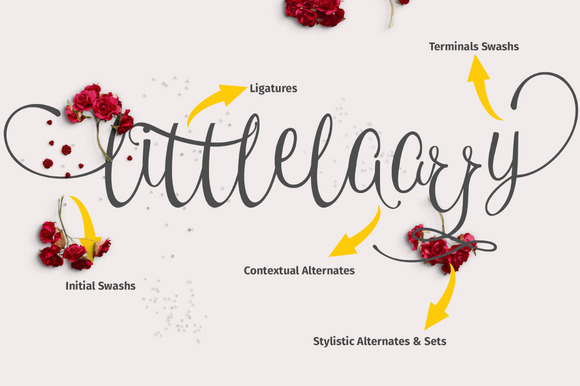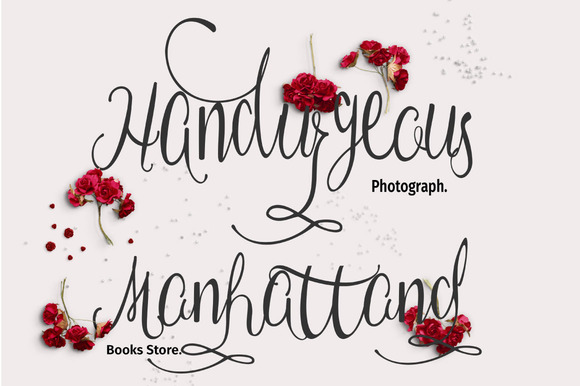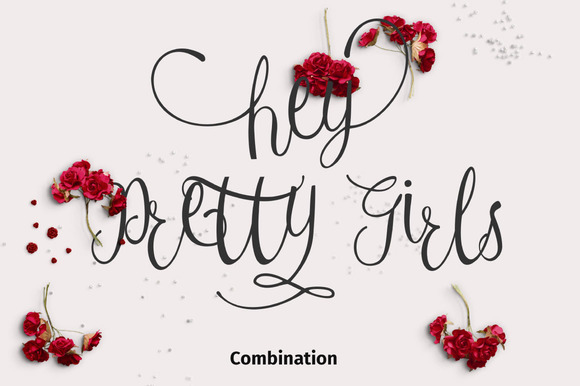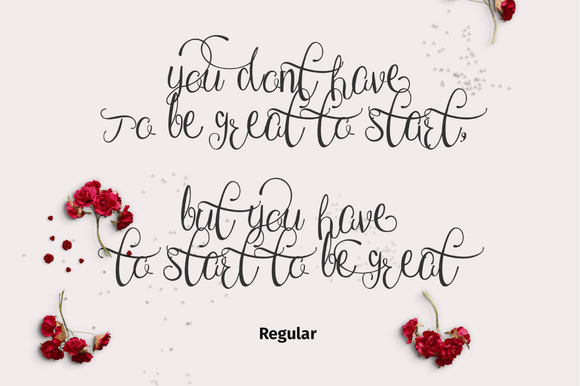
Introducing Grandymaa Font: The Sweet Calligraphy Typeface for Elegant Designs
In the world of typography, a new star has emerged – Grandymaa Script, a beautiful and sweet calligraphy typeface that is taking the design community by storm. This stunning font is characterized by its unique dancing characters that flow effortlessly along the baseline, exuding a sense of elegance and sophistication. Whether you’re a designer, crafter, or simply someone who appreciates beautiful typography, Grandymaa Font is sure to captivate your heart.
The Charm of Grandymaa Script
Grandymaa Script is more than just a font – it’s an experience. Its casual yet elegant touch makes it perfect for a wide range of design projects, from wedding invitations and posters to labels, logo book covers, branding projects, signatures, name cards, and much more. The font’s versatility is one of its most appealing features, allowing designers to experiment with different styles and applications.
Key Features of Grandymaa Font
- Dancing Characters: Grandymaa Script’s unique selling point is its characters that dance along the baseline, creating a sense of movement and fluidity.
- Elegant Touch: The font’s elegant touch makes it perfect for designs that require a touch of sophistication and refinement.
- Casual Feel: Despite its elegance, Grandymaa Script also has a casual feel that makes it suitable for a wide range of design projects.
- Versatility: The font can be used for various purposes, including wedding invitations, posters, labels, logo book covers, branding projects, signatures, name cards, and more.
Grandymaa Font is a dream come true for designers and crafters who are looking for a unique and elegant typeface to elevate their designs. Whether you’re creating a wedding invitation, a logo, or a branding project, this font is sure to impress. Its versatility and flexibility make it an excellent choice for designers who want to experiment with different styles and applications.
Tips for Using Grandymaa Script
To get the most out of Grandymaa Script, here are a few tips:
- Pair it with other fonts: Grandymaa Script looks great when paired with other fonts, especially sans-serif fonts. Experiment with different combinations to find the perfect match.
- Use it for headings: The font’s elegance and sophistication make it perfect for headings and titles.
- Experiment with colors: Grandymaa Script looks great in a variety of colors, from metallic and pastel shades to bold and bright hues.
In conclusion, Grandymaa Font is a beautiful and elegant calligraphy typeface that is sure to captivate designers and crafters alike. Its unique dancing characters, elegant touch, and versatility make it perfect for a wide range of design projects. Whether you’re creating a wedding invitation, a logo, or a branding project, Grandymaa Script is an excellent choice. So why wait? Give Grandymaa Font a try today and take your designs to the next level!
- Font Type: Script
- Characters: Dancing along the baseline
- Use cases: Wedding invitations, posters, labels, logo book covers, branding projects, signatures, name cards, and more
- Style: Elegant, casual, sophisticated
Discover the beauty of Grandymaa Script and elevate your designs with this stunning calligraphy typeface.